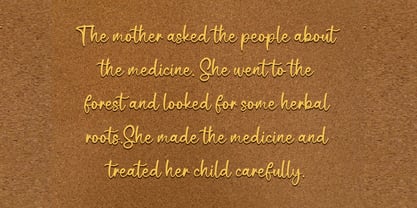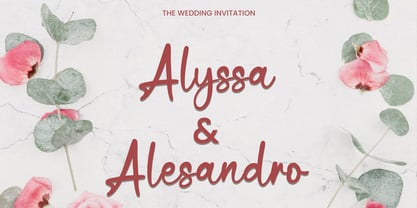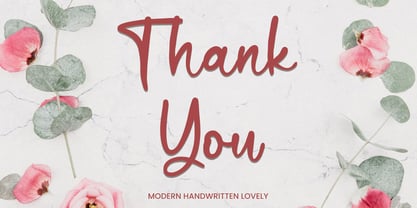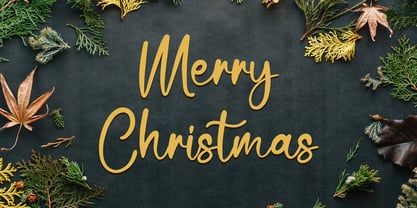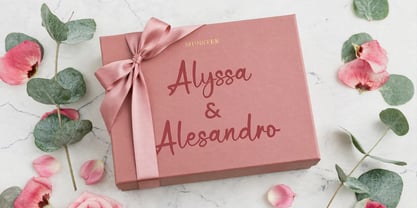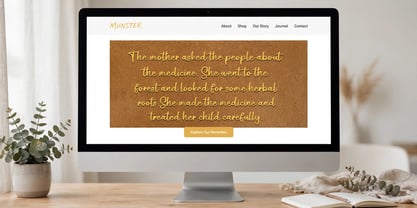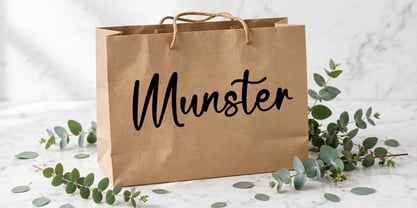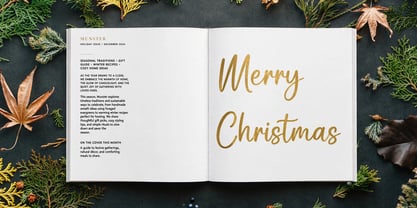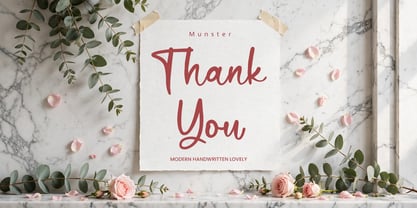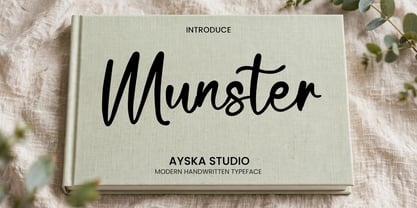
Munster
by Ayska
The Munster Font Family was designed by Dhoni Trihatmoko and published by Ayska. Munster contains 1 styles. More about this family
Munster is a charming smooth cursive script with a little french touch. It’s perfect for handcrafted brands that are looking for a bold script font with an authentic handwritten feeling. Handwritten type designed with classic and highlevel feel. It perfectly represents classic yet modern in signature way. Use it for blog headers, signatures, elegant branding, wedding stationery, products packaging, instagram quotes, greeting cards, social media posts, and so much more.
Designers: Dhoni Trihatmoko
Foundry: Ayska